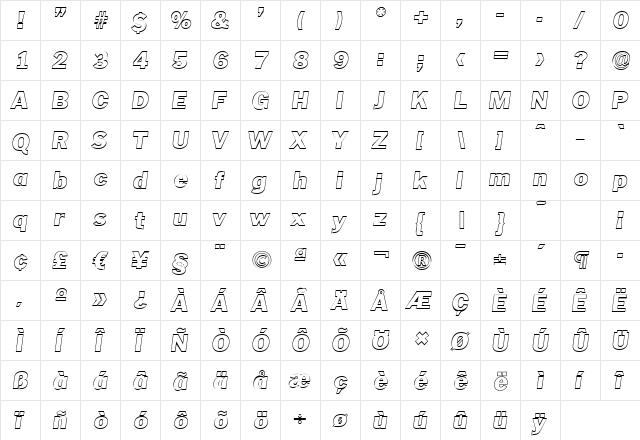
CarlBeckerOutline-Heavy Italic Font Preview
CarlBeckerOutline-Heavy Italic
Design Context for CarlBeckerOutline-Heavy Typeface
CarlBeckerOutline-Heavy is built around its visual character rather than neutral utility — its distinctive forms are designed to make an impression at display sizes. Its italic angle brings a sense of urgency and motion to the letterforms.
Font Pairing: Pair with a clean neutral sans-serif for body copy to let CarlBeckerOutline-Heavy's character lead without overwhelming the composition.
Pro Tip: Treat CarlBeckerOutline-Heavy as the centrepiece of your typographic hierarchy. One strong heading set in a decorative face can carry an entire layout.